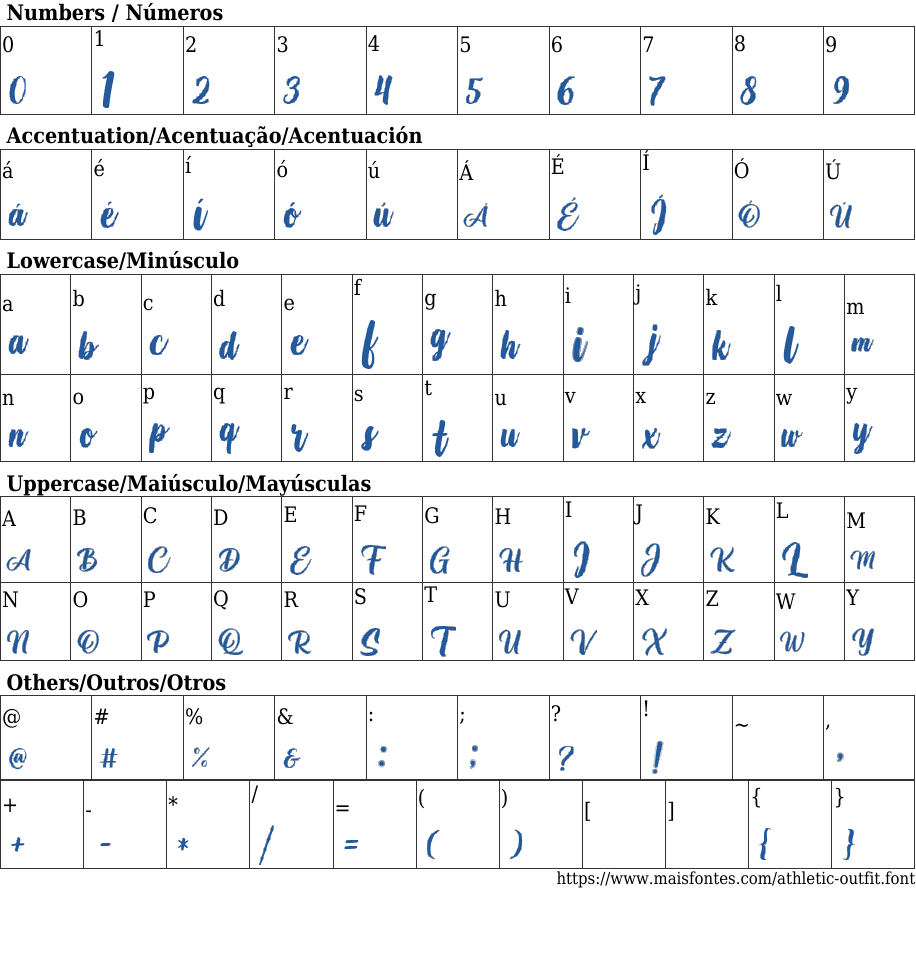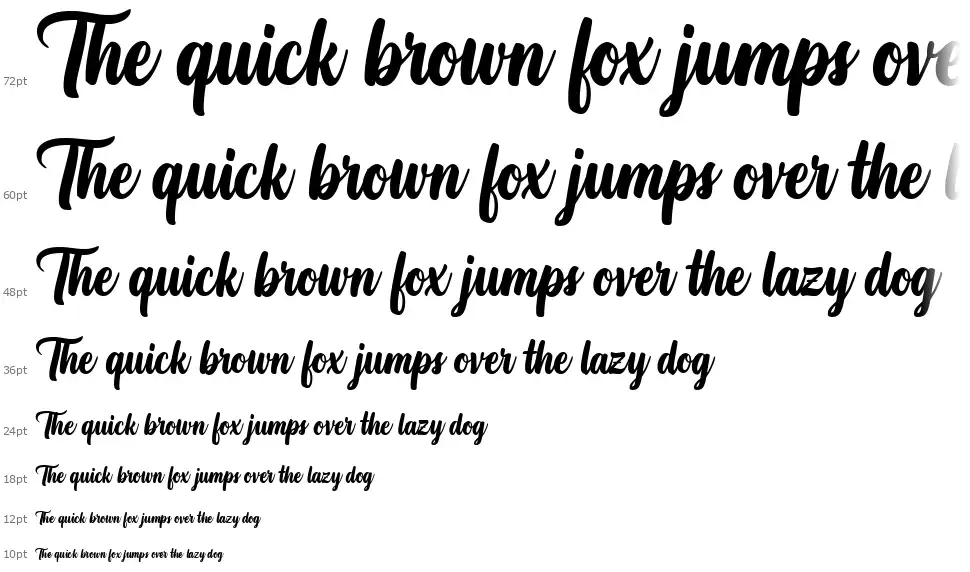
Athletic Outfit Normal Font Download athletic outfit font from free cdn or use it on your website as webfont. The athletic outfit font has been downloaded 114,887 times. Download and install the athletic outfit font by octotype. Free download of athletic outfit font. Click now to create a custom image with your own words that you can download. Download athletic outfit font from free cdn or use it on your website as webfont. This font features a bold, flowing script style with a dynamic and energetic appearance. 381,172 downloads (109 yesterday) free for personal use. Athletic outfit à € by octotype | thomas boucherie. 381 290 téléchargements (118 hier) gratuit pour un usage personnel.
Athletic Outfit font by Octotype Thomas Boucherie FontRiver Athletic Outfit Normal Font This font features a bold, flowing script style with a dynamic and energetic appearance. Download athletic outfit font from free cdn or use it on your website as webfont. 381,172 downloads (109 yesterday) free for personal use. Athletic outfit à € by octotype | thomas boucherie. Download and install the athletic outfit font by octotype. Free download of athletic outfit. Athletic Outfit Normal Font.